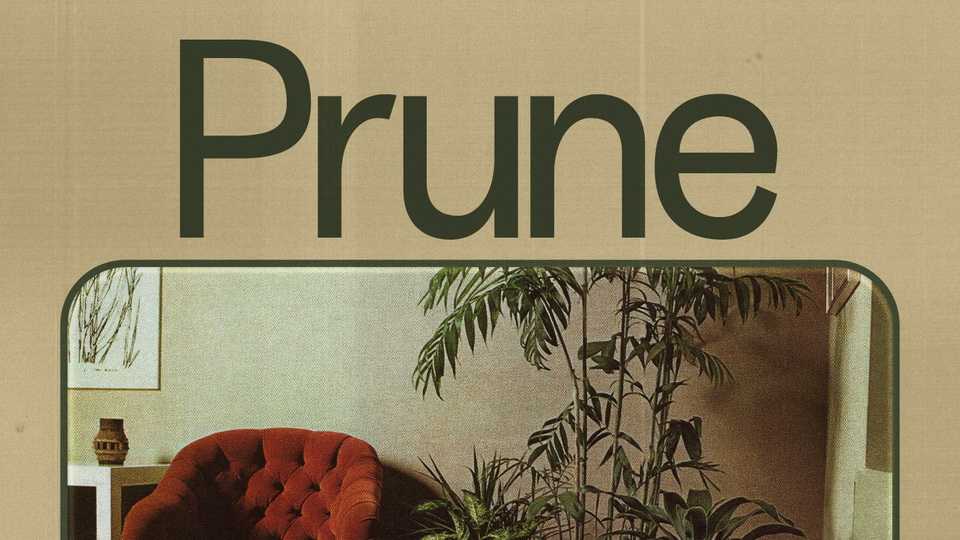
Download Prune font, a sans serif typeface inspired by houseplants. Trimmed serifs and sharp finials enable Prune to grow more fruitful typefaces, coming this 2021 spring season.